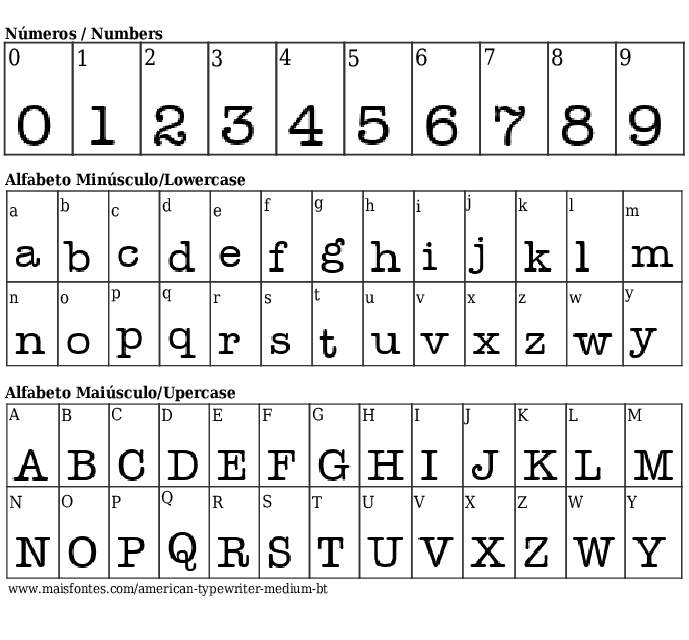
American typewriter is a slab serif typeface created in 1974 by joel kaden and tony stan for international typeface corporation. This font only personal use.
A free version of this font is available for personal purposes. The characters do not all have the same width. Itc american typewriter font was designed by joel kaden and tony stan.
American typewriter font family features. American typewriter font is a serif typeface that comes under the slab classification. Application licensing allows fonts to be embedded in your software applications.
The itc american typewriter font family was designed by joel kaden and tony stan in 1974. American typewriter font view on image designs. American typewriter is free for personal use only.
This regular font have 249 glyph quantity and have 1000 units in according to per em. The american typewriter font is copyrighted, as you can see from font info. It is an ode to the invention that shaped reading habits and the idea of legibility, the typewriter.
Like many itc fonts similar to archer font. English, french, german, greek, italian, maltese, polish, turkish; About the font american typewriter.
It is based on the slab serif style of typewriters; American typewriter font combinations & free alternatives. It’s free to download and use the american typewriter regular in your mac and pc.
American typewriter font is a serif typeface that comes under the slab classification. The itc american typewriter font retains the typical typewriter alphabet forms, giving the font a hint of nostalgia. Itc american typewriter font was designed by joel kaden and tony stan.
A compromise between the rigidity of its ancestor and the expectations of the digital age, itc american typewriter font retains the typical typewriter alphabet forms, lending the font a hint of nostalgia. Whisholder vintage & ornaments vintage fonts, typeface. Itc american typewriter is intended to meld typewriter type with the proportional spacing of a typographic font.
It was firstly launched in bloodless kind (photocomposition) earlier than being released digitally. Joel kaden and tony stan designed this serif font in 1974 for different foundries including itc, apple, adobe, and linotype. This font uploaded 12 october 2015.